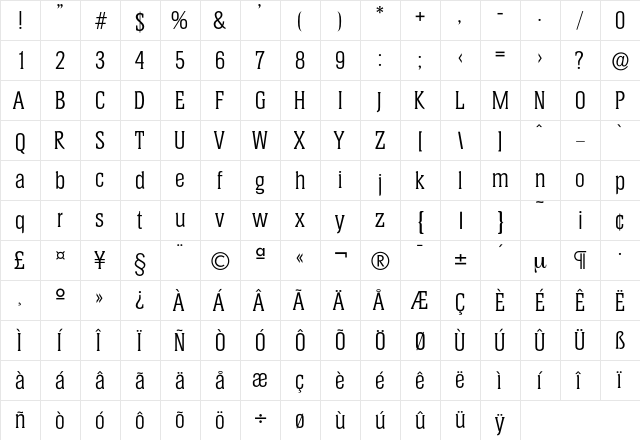
Helium-Regular Regular
Design Context for Helium-Regular Typeface
Helium-Regular is a composed and adaptable typeface that performs quietly and consistently across a wide range of design contexts.